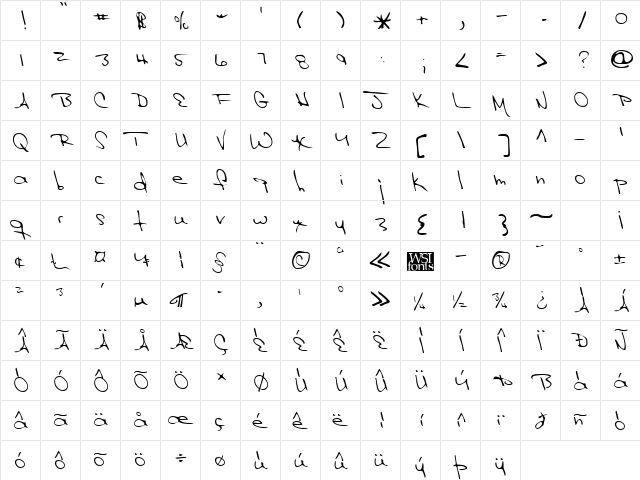
JessiesHand Regular
Design Context for JessiesHand Typeface
JessiesHand brings a calligraphic fluidity to the page — its connecting strokes and expressive curves give it an unmistakably human quality.
Font Pairing: Combine JessiesHand with a simple geometric sans for maximum contrast — the tension between flowing curves and clean structure is a classic typographic pairing.
Pro Tip: Pair JessiesHand with a clean sans-serif for supporting text. The contrast between fluid script and geometric structure creates an elegant typographic hierarchy.